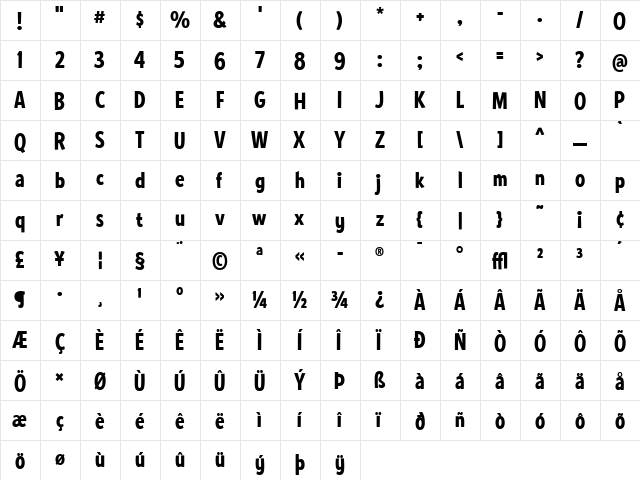
EdPS Regular Font Preview
EdPS Regular
EdPS Regular Font Details
Design Context for EdPS Typeface
EdPS is a composed and adaptable typeface that performs quietly and consistently across a wide range of design contexts.